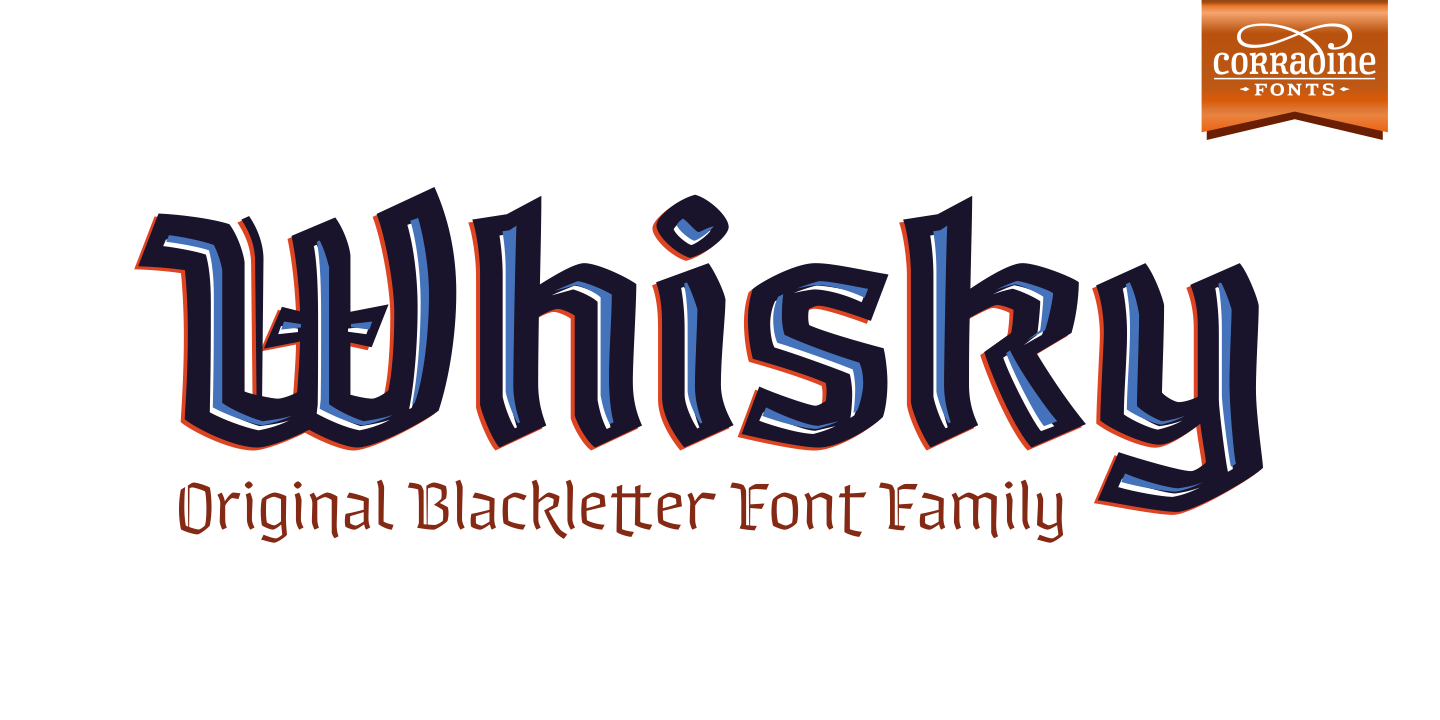
Whisky Font Free Download – Elevate your design projects with this stylish and versatile typeface. Whether you're working on branding, logos, or editorial designs, Whisky Font brings a unique touch to your creative work.
Where Can You Use Whisky Font?
Whisky Font is perfect for:
• Branding & Logos – Give your business a bold, modern identity.
• Packaging Design – Stand out on shelves with eye-catching typography.
• Posters & Advertisements – Capture attention with its distinctive style.
• Social Media Graphics – Enhance your posts with a professional yet creative look.
Why Is Whisky Font Exciting?
Whisky Font combines elegance and modernity, making it a fantastic choice for designers who want a balance between sophistication and impact. Its clean lines and unique character shapes ensure readability while maintaining a stylish edge.
Whisky Font Family
The Whisky Font family includes multiple weights and styles, such as:
• Whisky Bold
• Whisky Regular
• Whisky Italic
• Whisky Light
Each variant offers flexibility, allowing you to create cohesive yet dynamic designs.